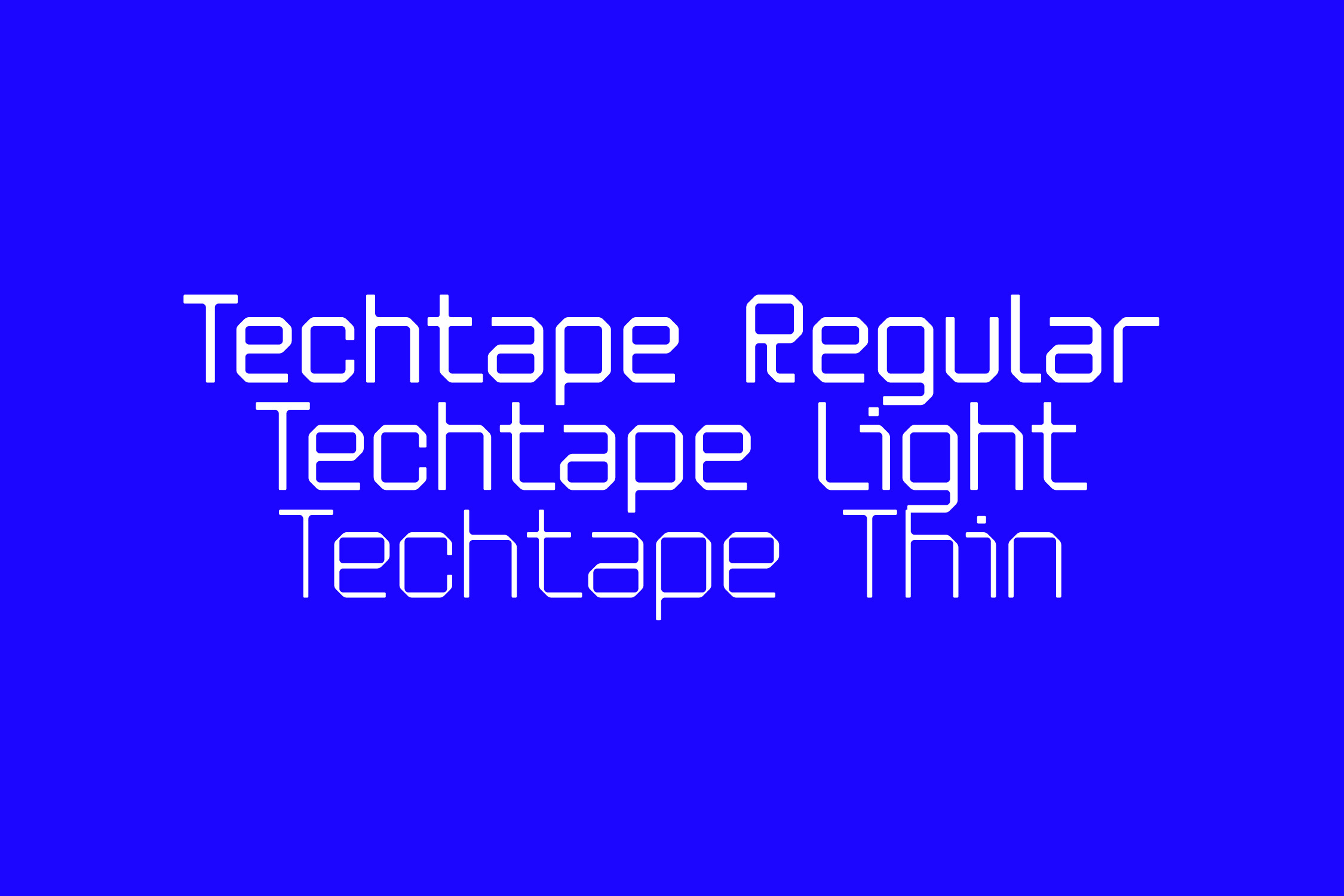
Techtape
TECHTAPEt is a typeface based on the idea of folding and cutting tape stripes making lines, angles and new shapes. It's geometric, structured and straightforward, has a number of rules and limitations, but at the same time it is elegant and lively. Some rules are broken, some rules have exceptions – these all make the font behave like an independent graphic element.
- Uppercase, lowercase, numerals, symbols and punctuation
- 3 Weights: Regular, Light, Thin